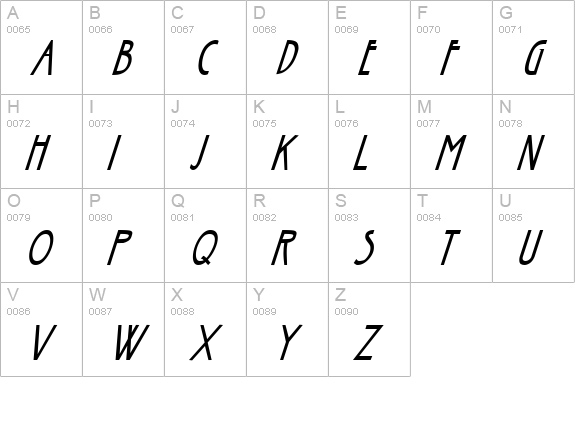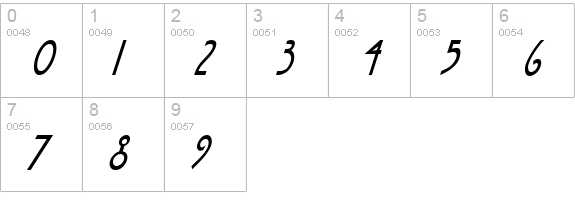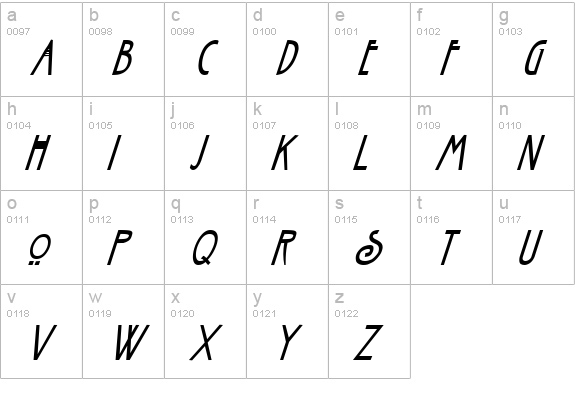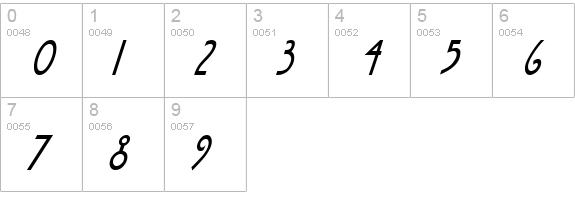
Nouveau Italic is a distinctive, italic variant in the Nouveau typeface family \xE2\x80\x94 well suited to design and typography projects.
Introducing Nouveau Italic font, a sleek and sophisticated typeface that effortlessly combines elegance with a modern touch. Its graceful curves and slender lines exude a sense of refinement, making it perfect for adding a touch of sophistication to any design project. Nouveau Italic font is not only visually appealing, but it also offers excellent readability, making it suitable for a wide range of applications from branding to editorial design. Whether you are designing a logo, creating a brochure, or working on a website, Nouveau Italic font will elevate your project to the next level. Best of all, Nouveau Italic font is available for free download at FontsMarket.com. Don't miss this opportunity to enhance your design projects with this exquisite typeface that combines classic elegance with a contemporary twist. Download Nouveau Italic font today and let your creativity shine!